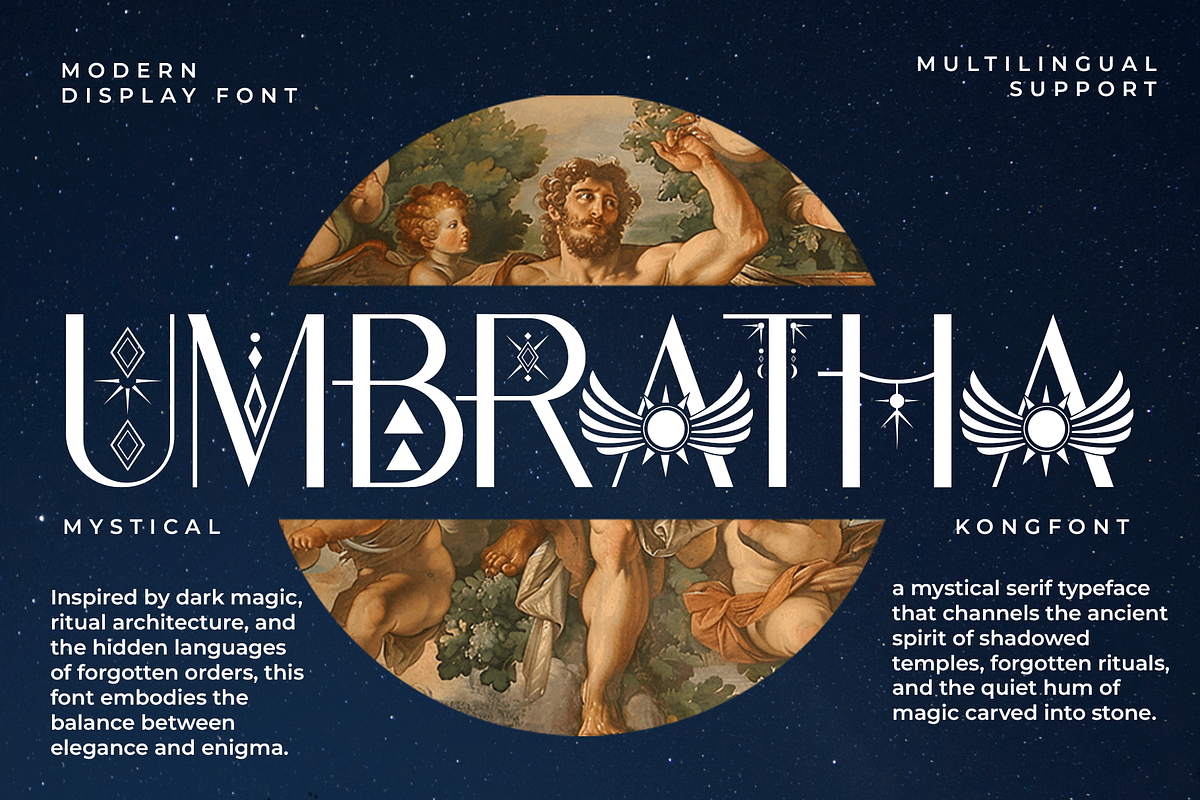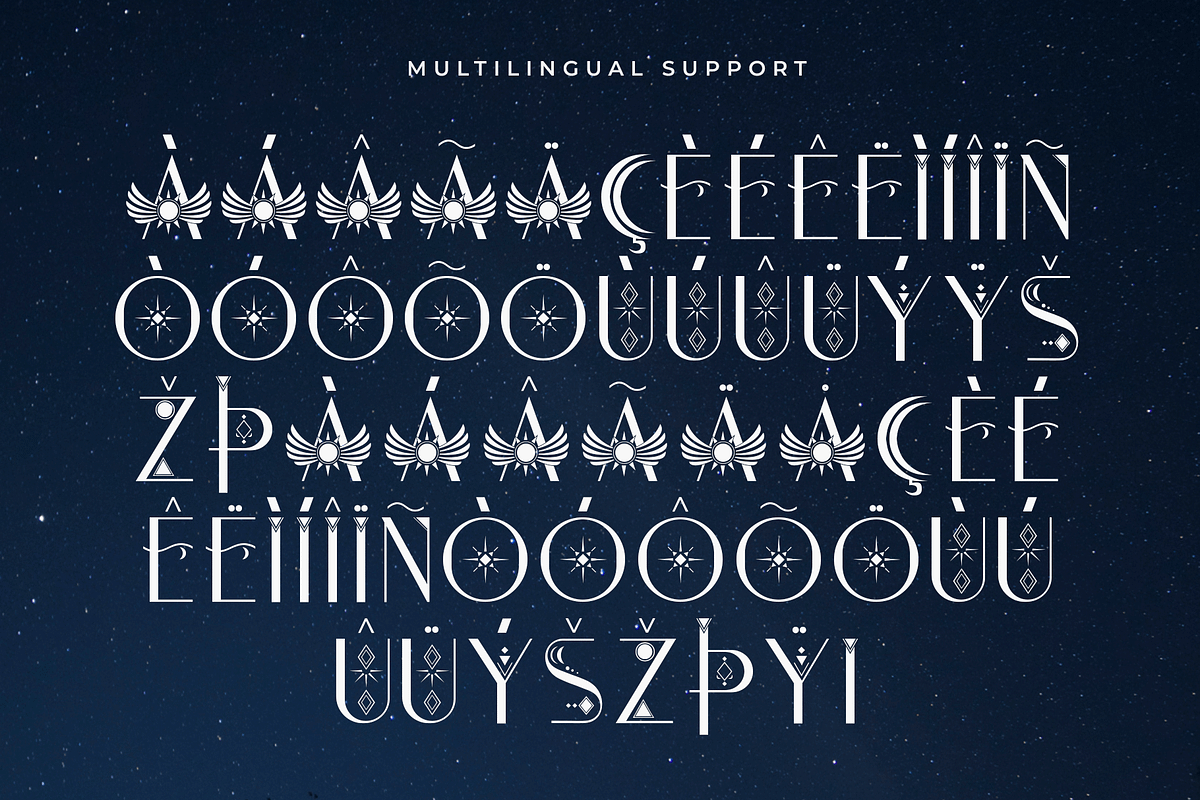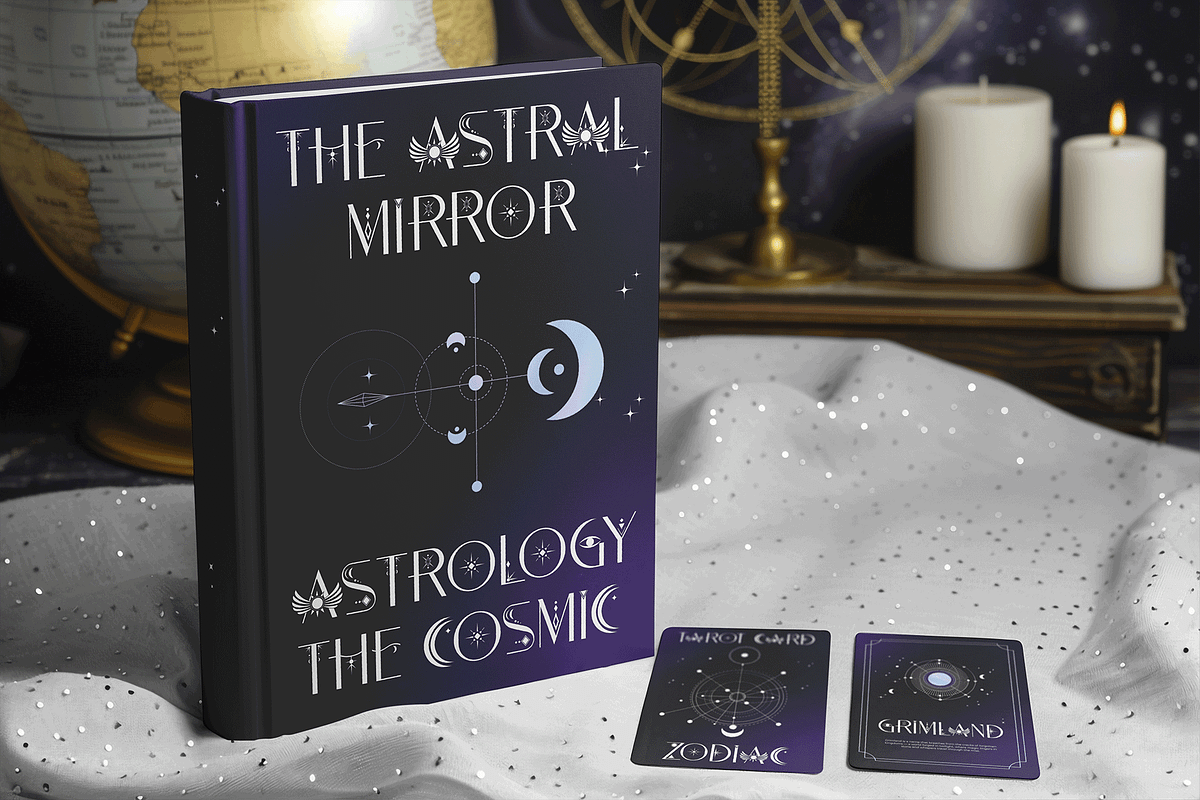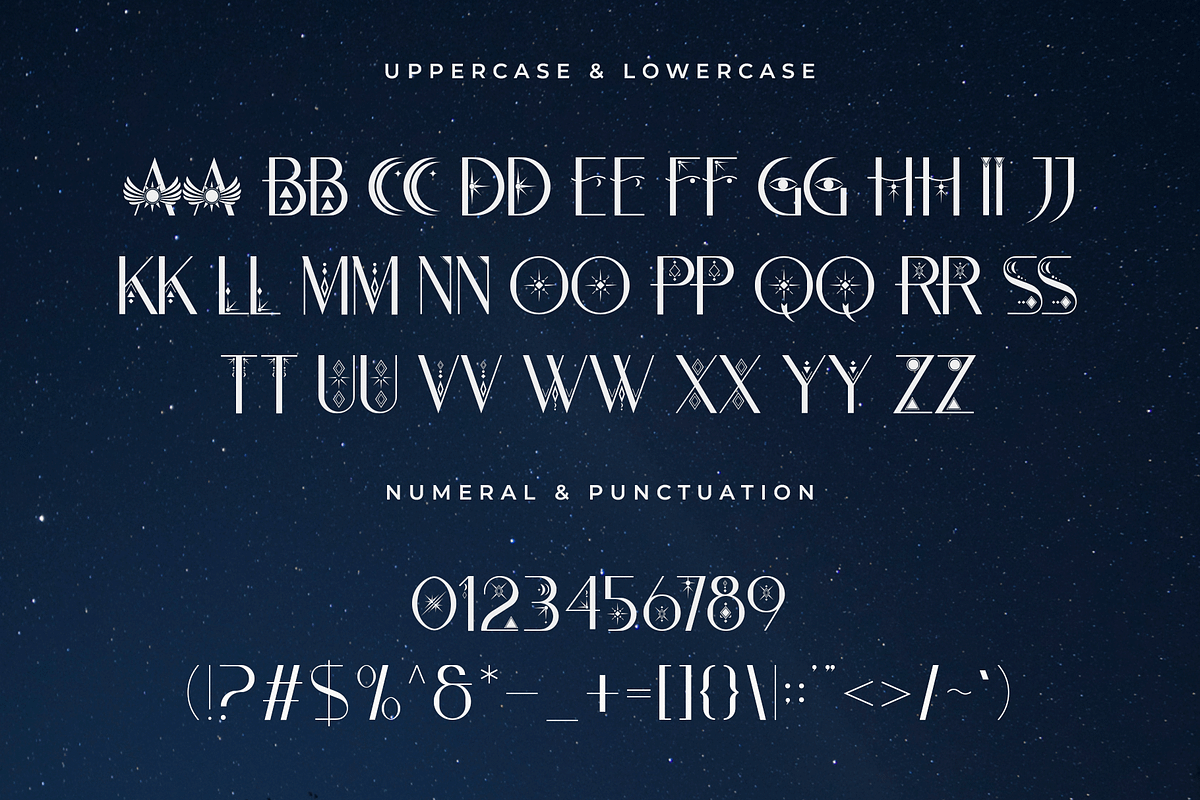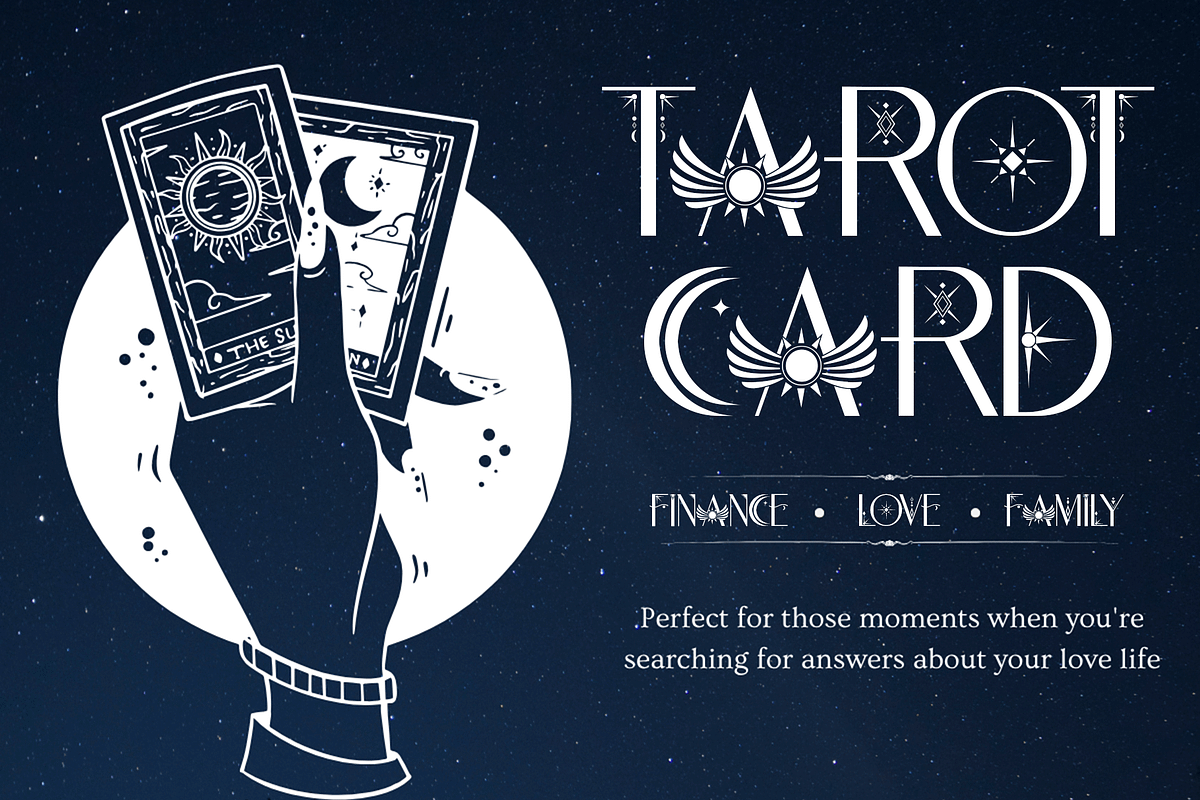
Umbratha – Modern Display Font
Introducing Umbratha, a modern display font designed to command attention with its bold shapes and striking character design. Featuring sharp edges and contemporary flair, Umbratha delivers a powerful visual presence that’s perfect for titles, posters, branding, and digital artwork.
Every letterform in Umbratha is crafted to balance strength and style, giving your typography a dramatic yet clean appearance. Its versatility makes it ideal for modern designers seeking a distinctive typeface that adds attitude and depth to any creative project.
Whether you’re creating futuristic visuals, branding bold products, or crafting eye catching headlines, Umbratha brings a sleek, modern edge to your designs.